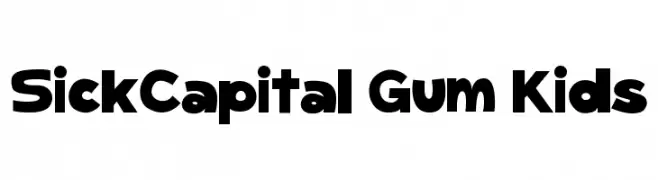
A bold, futuristic font with sharp, angular edges and a geometric design.
An ornate and decorative font with intricate letterforms.
A decorative and ornate font with intricate details and a vintage-modern blend.
A modern, geometric sans-serif font with clean lines and uniform structure.
A modern, geometric sans-serif font with clean lines and balanced proportions.
A sleek, modern font with thin lines and a minimalist design.
A distressed, bold sans-serif font with a rugged, vintage appearance.
A whimsical and ornate font with decorative embellishments and a mystical style.
A dynamic, brush-stroke font with an expressive, hand-drawn style.
A modern, medium-weight sans-serif font with a clean and versatile style.
A modern, medium-weight italic sans-serif font with a sleek and dynamic style.
A modern, semi-bold sans-serif font with a clean and geometric style.
A modern, semi-bold italic sans-serif font with a sleek and dynamic style.
A bold, modern sans-serif font with geometric shapes and rounded edges.
A bold, geometric sans-serif font with a modern and clean aesthetic.
A playful, nature-inspired decorative font with grass-like embellishments.
A modern, geometric sans-serif font with clean lines and uniform strokes.
A bold, dripping font with a horror-inspired, decorative style.
A clean, modern sans-serif typeface with uniform stroke width and balanced proportions.
A sleek, modern sans-serif font with a light, italic style.
A clean, modern sans-serif typeface with uniform stroke width and rounded edges.
A modern sans-serif font with an italic slant, offering elegance and readability.
A bold, modern sans-serif font with uniform strokes and balanced spacing.
A modern, italic sans-serif font with clean lines and balanced proportions.
A bold, modern sans-serif font with clean lines and excellent readability.
A modern, italicized sans-serif font with bold weight and excellent readability.
A bold, modern sans-serif font with clean lines and excellent readability.
A bold, italic sans-serif font with a modern and dynamic style.
A bold, modern sans-serif font with uniform strokes and high legibility.